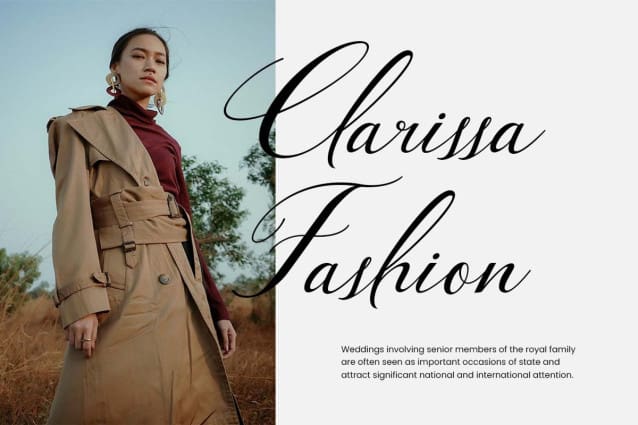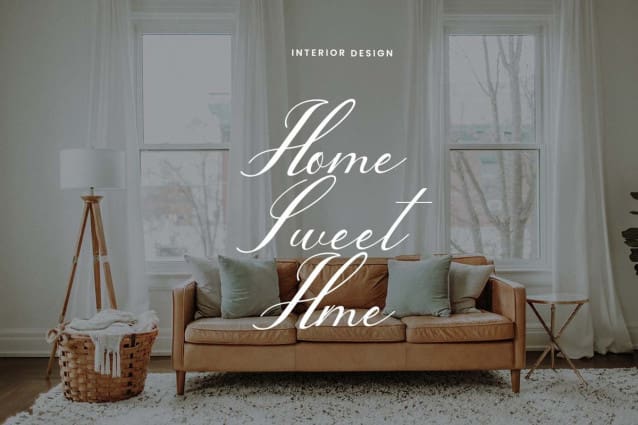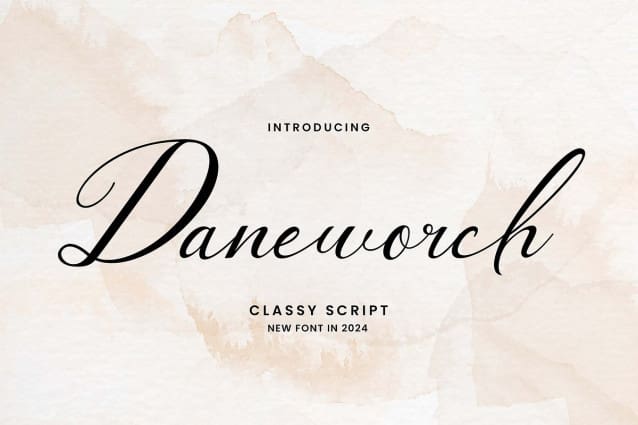
Daneworch Font
Daneworch Font – Classy Script Font. The modern display font feels beautiful classy, elegant, and stylish. This font is ideally suited for a wide variety of projects, such as signature, stationery, logo, wedding, typography quotes, magazine or book covers, website headers, branding, and more. Also, fashion-related branding or editorial design displays both masculine and feminine qualities.